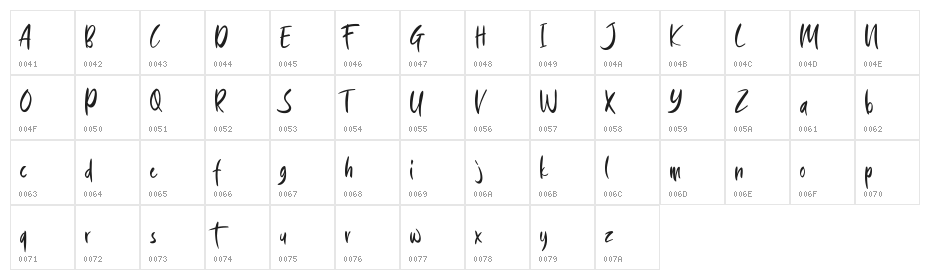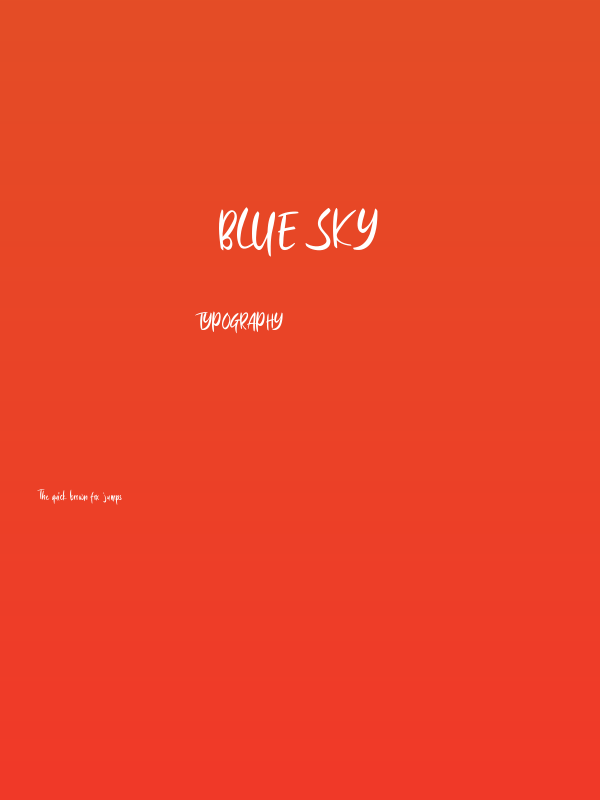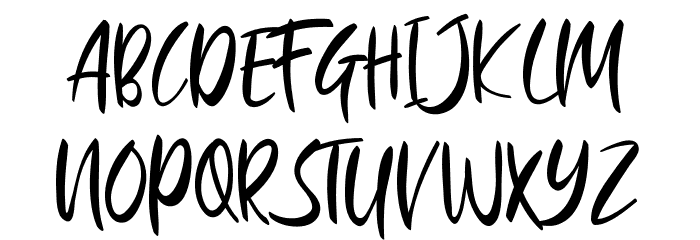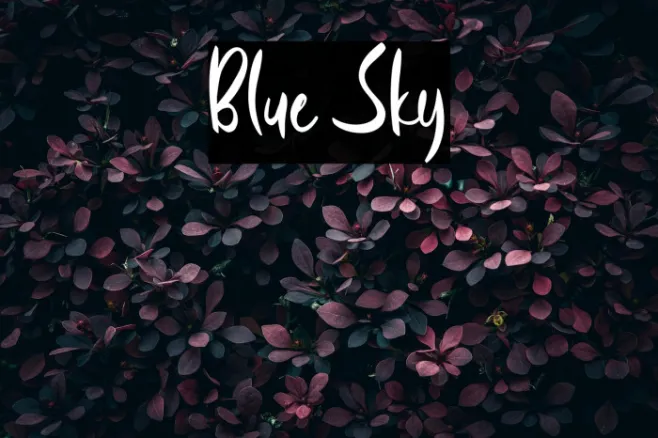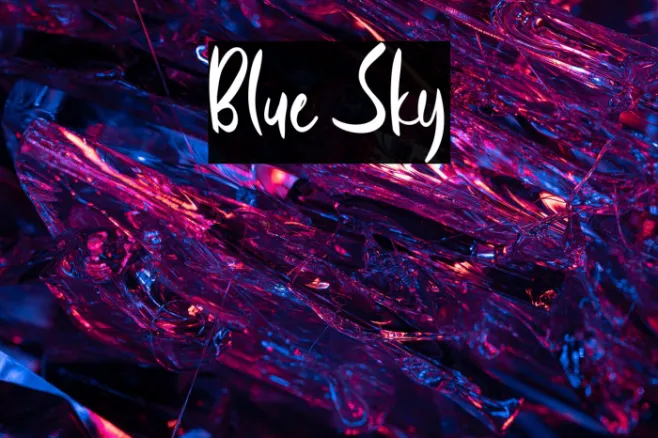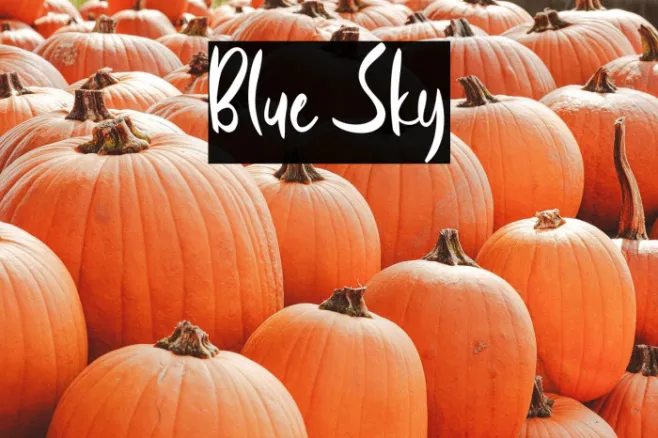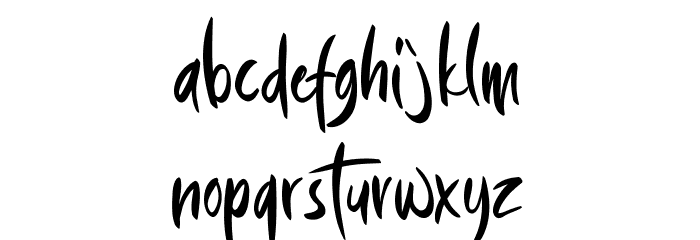
Blue Sky Font
Blue Sky Description
This font features a dynamic and energetic handwritten style, characterized by its fluid and slightly irregular strokes. The uppercase letters are bold and expressive, with a noticeable slant that adds a sense of movement and vitality. The lowercase letters maintain a consistent flow, complementing the uppercase with their smooth curves and playful loops. The overall appearance is casual yet stylish, making it suitable for designs that require a personal touch. The font's unique character is further enhanced by its varying stroke widths, which provide a sense of depth and texture. This font is ideal for projects that aim to convey creativity and individuality.
| Proposed Projects | Ideal for branding, invitations, greeting cards, and social media graphics. |